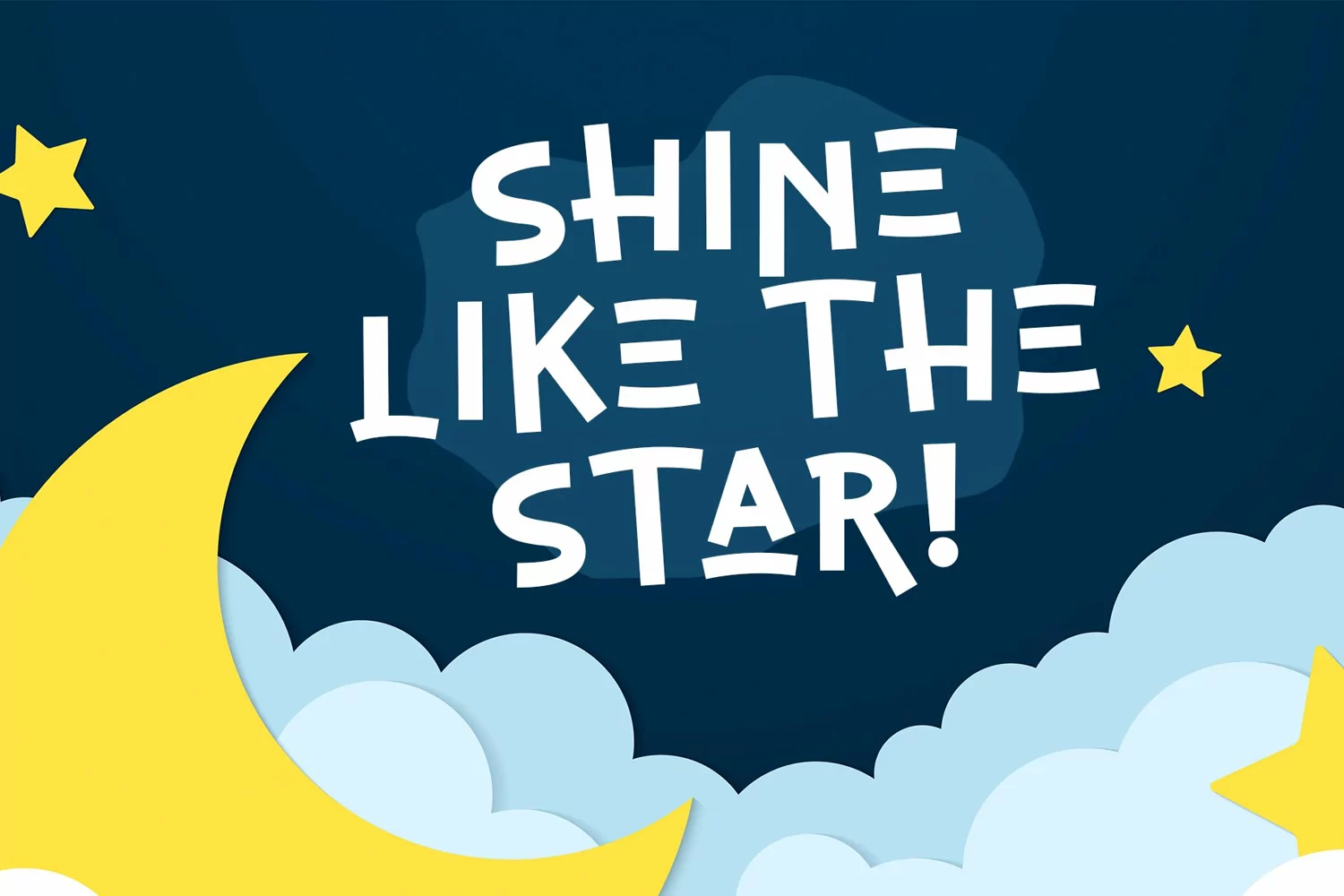
Lona is a handrawn kids font. Perfect for display, poster, quotes, film, craft needs, book cover, business card, packaging, merchandise, branding, logo, logotype, header, title, and many more.